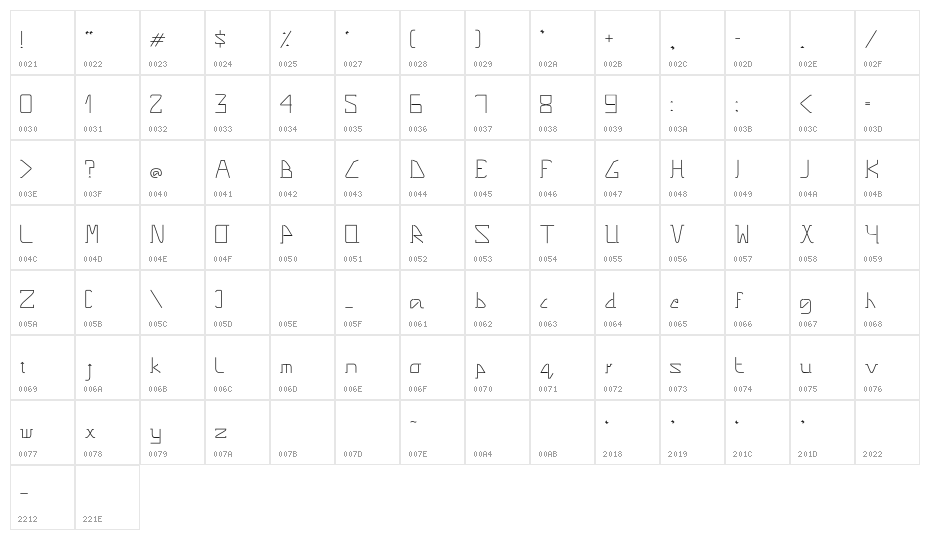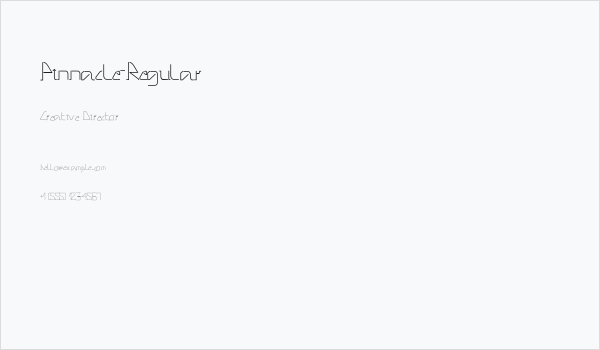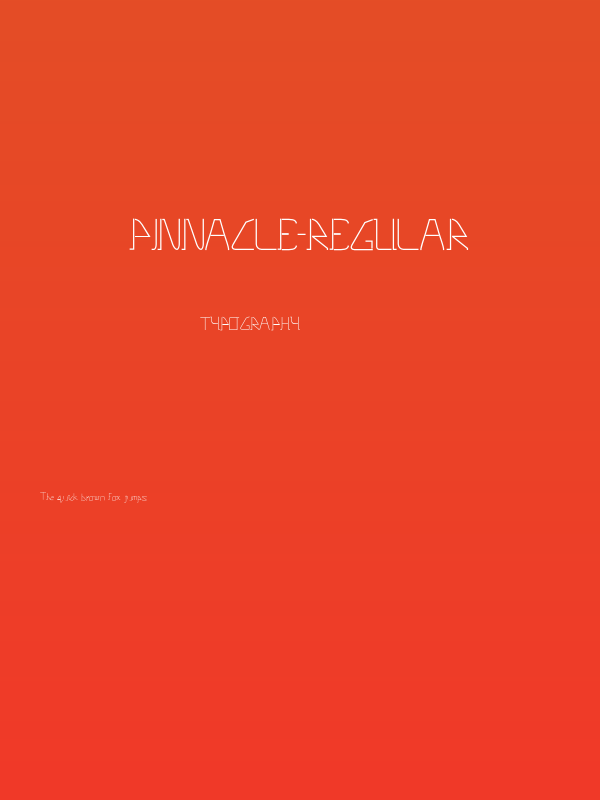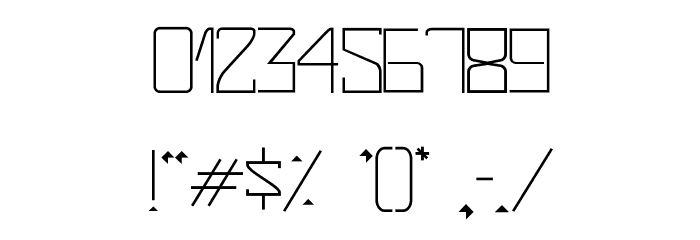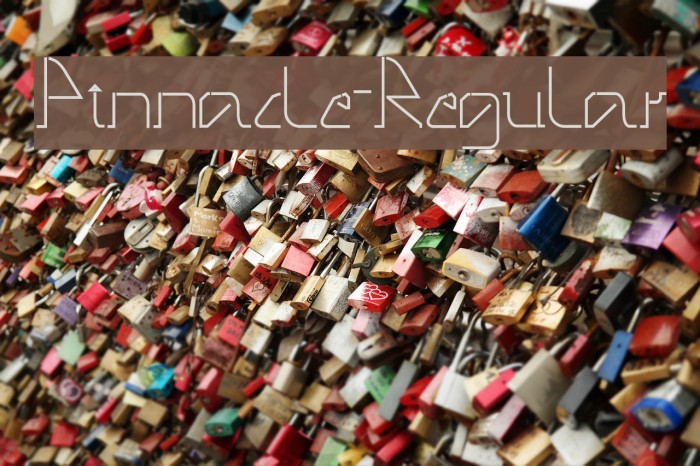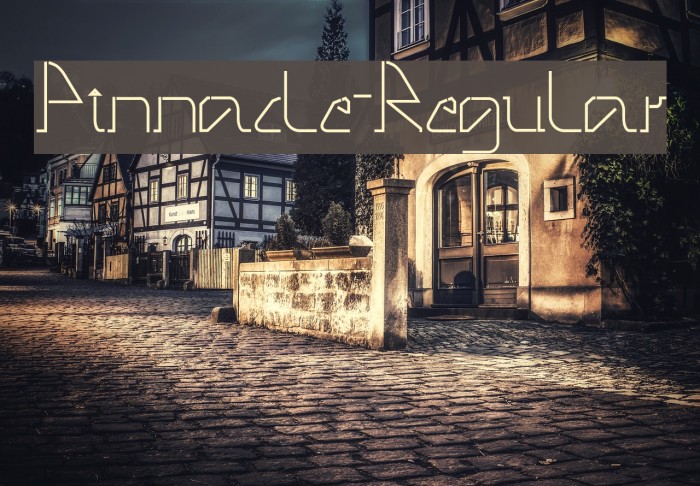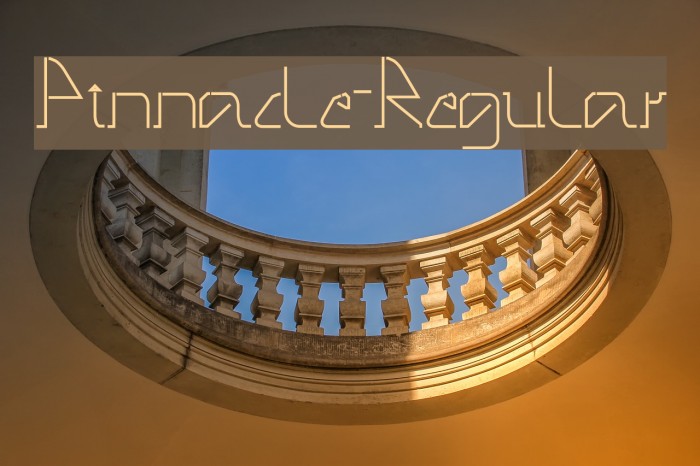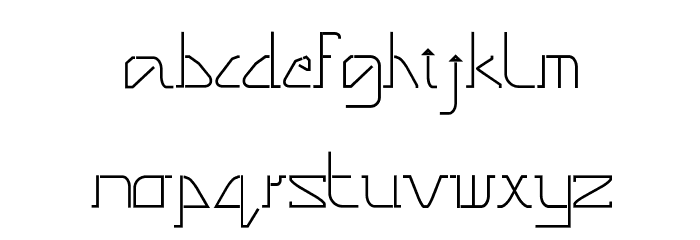
Pinnacle-Regular Font
Pinnacle-Regular Description
This font features a geometric and angular design, characterized by its sharp edges and linear strokes. The uppercase letters exhibit a futuristic and technical appearance, with consistent line thickness and minimal curves. The lowercase letters maintain the same angular style, providing a cohesive look across the alphabet. Numbers and special characters follow the same design principles, ensuring uniformity. The overall aesthetic is modern and sleek, making it suitable for projects that require a contemporary and edgy feel.
| Proposed Projects | Ideal for technology branding, sci-fi themed designs, modern posters, and digital interfaces. |